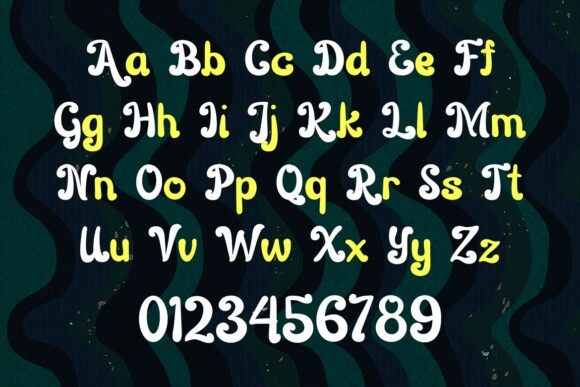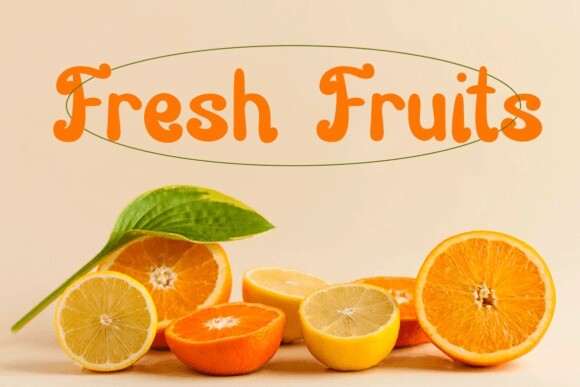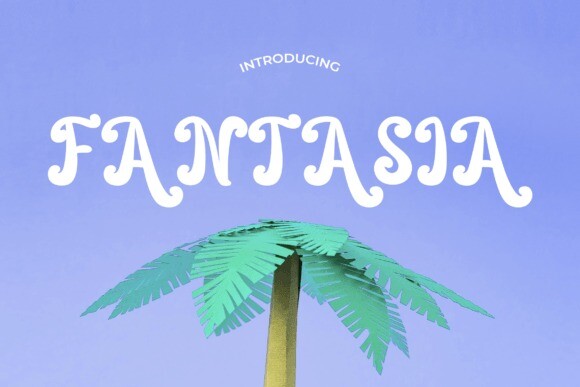
Fantasia Retro Font
Fantasia Retro Font – the font that effortlessly channels retro vibes with a modern twist! Designed in a captivating display style, Fantasia is your passport to a world where nostalgia meets contemporary design. It’s the perfect companion for unleashing creativity across a wide array of projects, from fashion and logos to quotes, invitations, posters, greeting cards, packaging, branding, cover albums, events, postcards, and beyond.